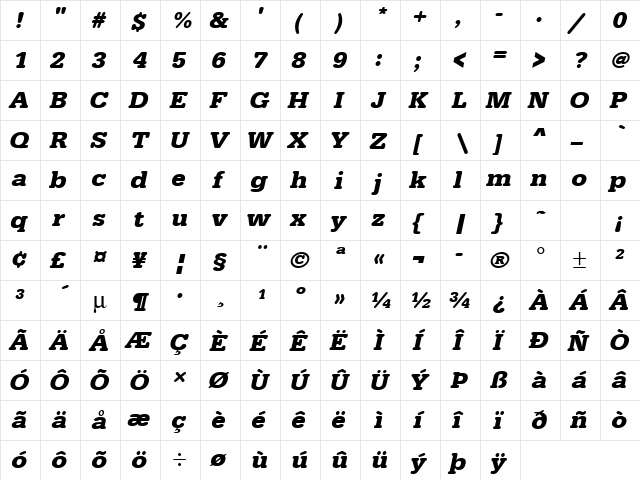
URWTypewriterTWid Bold Oblique Font Preview
Design Context for URWTypewriterTWid Typeface
URWTypewriterTWid brings the precise, column-aligned rhythm of monospaced typography to designs that value technical clarity and systematic order. The dynamic lean of this cut emphasises speed and emphasis in any layout. The heavy weight commands attention and anchors typographic hierarchies.
Pro Tip: Pair URWTypewriterTWid with a proportional sans for UI contexts where code-style labels and regular body copy need to coexist.